Cool Download San Serif Fonts Ideas. Work with one of the best sans serif fonts with grotesque elements. Sans fonts can be used for very readable long.
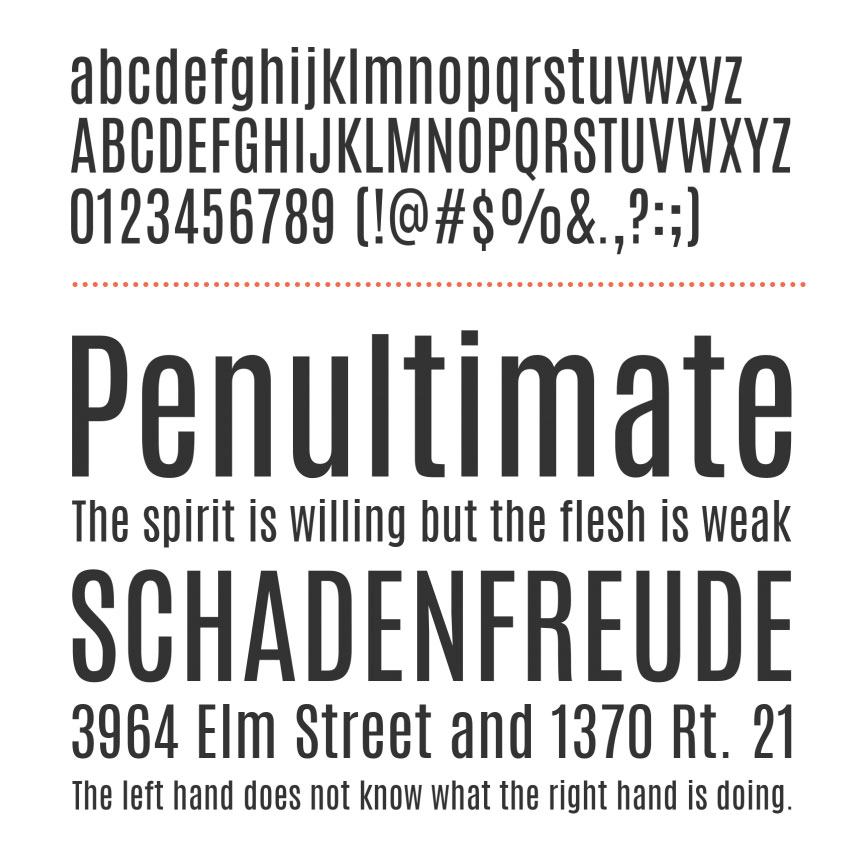
Click to find the best 467 free fonts in the sans serif logo style. Sans serif fonts and basic style fonts. While serif fonts are identified by a small stroke decorating the end of a longer stroke, sans serif fonts lack that extra ornamental stroke.
This Typeface Has Come Up With 6 Different Styles.
It Was Designed To Be Metrically Compatible With The Ms Sans Bitmap Font That Shipped In Early Versions Of.
It Is Developed In High Quality True Type Family Typeface.
Microsoft Sans Serif Font Family :